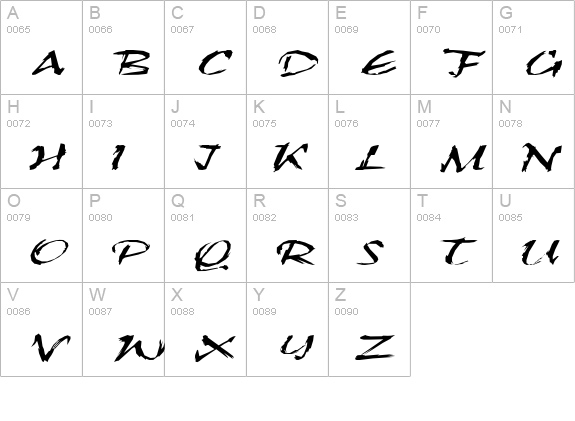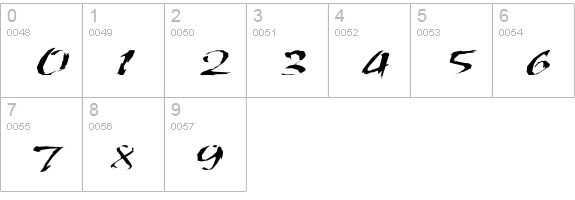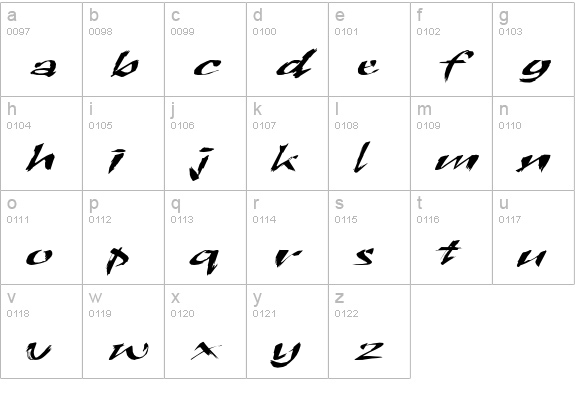
Syras Script Brush Font Details
Syras Script Brush font is a charming and elegant typeface that exudes a sense of creativity and sophistication. With its fluid brush strokes and graceful curves, this font is perfect for adding a touch of personality to your design projects. Whether you're creating invitations, logos, or branding materials, Syras Script Brush font will surely make your text stand out. The best part? Syras Script Brush font is available for free download at FontsMarket.com! This means you can easily access this beautiful typeface and use it in your projects without any cost. Don't miss out on the opportunity to enhance your designs with the beauty and versatility of Syras Script Brush font. Download it today and let your creativity shine!